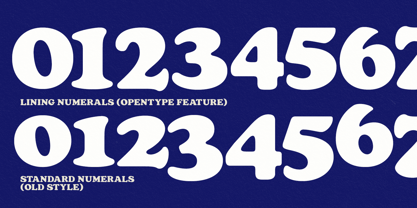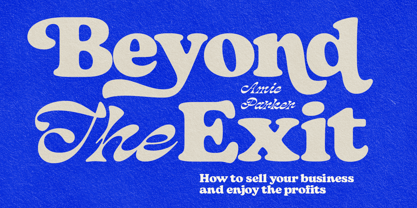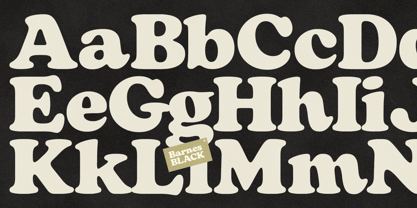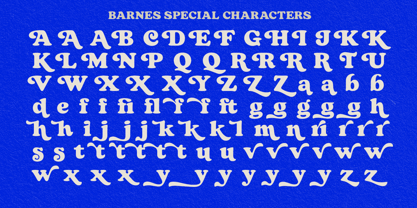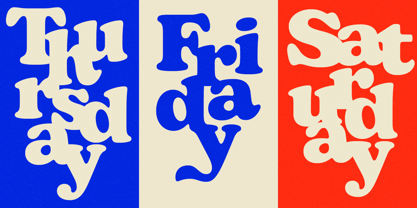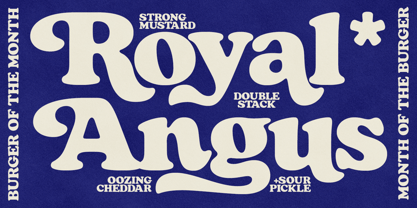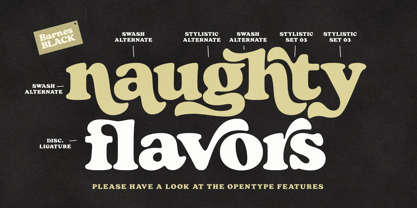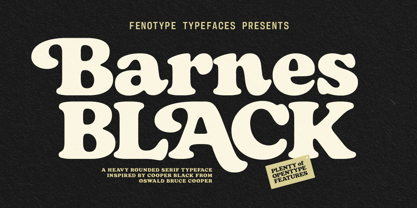
Barnes
La famille de polices Barnes a été conçue par Emil Karl Bertell et publiée par Fenotype. Barnes contient 1 styles. En savoir plus sur cette famille
Inspired by the over one hundred years old evergreen classic, Cooper Black, Barnes is a plump serif with plenty of character. Being less rigid than its inspirer, Barnes combines a blend of familiar nostalgia with modern forms. Barnes is best used for product and packaging design and any kind of display purposes from music business to restaurant menus and from t-shirts to band logos. Barnes is equipped with 116 Alternate Characters set in Swash, Stylistic and Titling Alternates + some extras in Stylistic Sets 1-3. Barnes has Old Style Numerals (and currency symbols) as standard and Lining versions available via OpenType features.
Emil Bertell has done it all. Having published his first font files at 16, he was considered to be an international free-font hero while still in his teens. He went on to attend design college, drop out, and become a well-known graphic designer and illustrator. Now one of the most successful type designers from the Nordic countries on MyFonts, the Finland-based designer said in his Creative Characters interview that he’s “had an obsession with visual culture from the beginning.” Before turning his attention to type design full-time, Emil had a very successful career as an award-winning illustrator. “Illustration became my main livelihood,” he said. “I drew painstaking pencil illustrations for magazines, advertising, stamps, etc. I often designed my own fonts for festivals and hand-drew the lettering posters; I also did a few pencil illustrations based on lettershapes, and that got out of hand, so I had to do a lot more of them.” In 2012 he finally made the switch and committed all of his time to type design. Emil first saw success with his Billboard typeface. “It became my first Rising Star on MyFonts and made me realize that I could actually make a living by designing fonts,” he said. “I realized that there’s actually a market out there that I could become a part of.” Throughout the rest of that year he began to see even more success. It began in January, when his font, Mishka, was featured in our Most Popular Fonts of 2011 list. He went on to find a way to bookend the year and was listed among the Most Popular Fonts of 2012 with his Mercury Script design. Since then, his foundry’s success has continued on with best sellers like Voyage and The Carpenter. Fans of the foundry have a lot to look forward to in the near future. Emil will continue to produce beautiful scripts (some coming soon to MyFonts!) and has plans to expand his business.